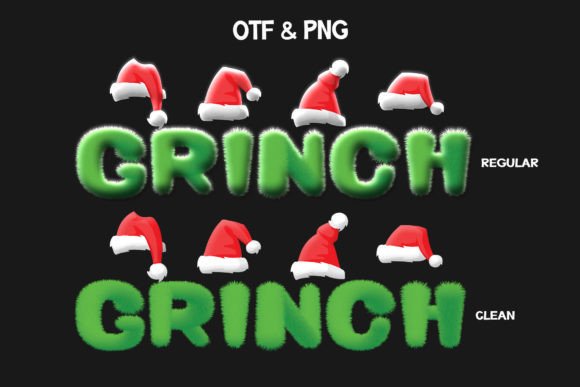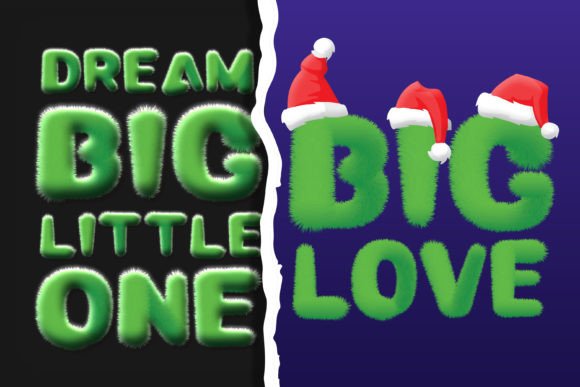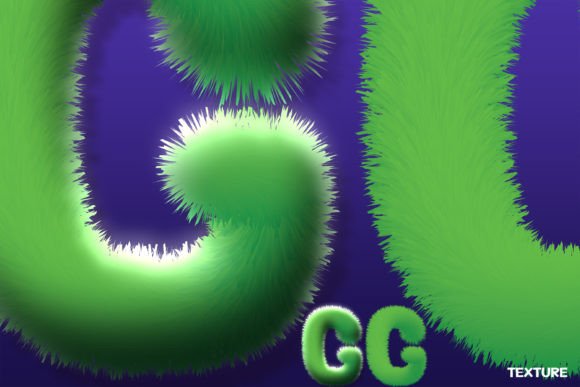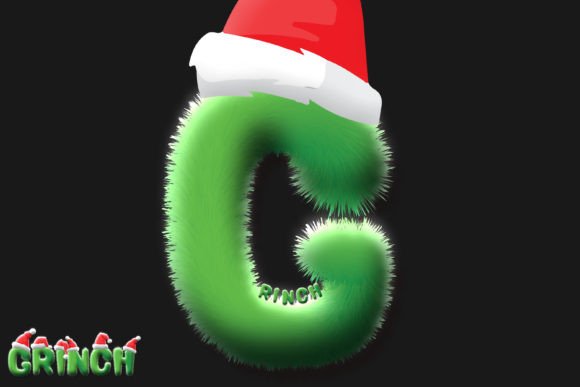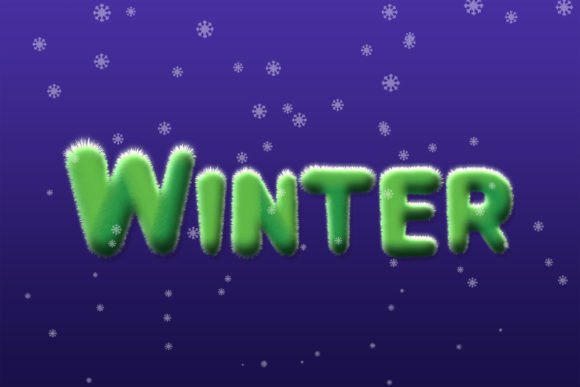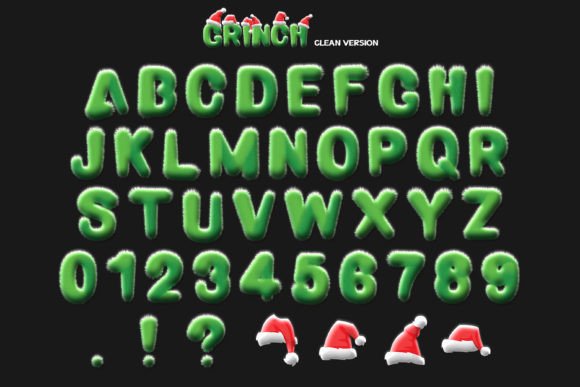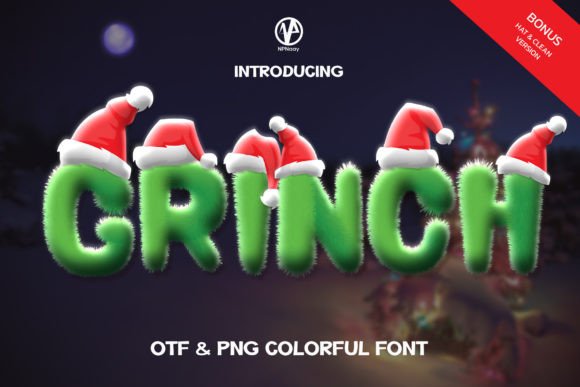
Introducing the Grinch Font: A Fun and Quirky Color Font for Cheerful Designs
Are you looking for a font that can add a touch of whimsy and fun to your designs? Look no further than the Grinch Font! This delightful color font is perfect for use on cheerful topics, making it an ideal choice for children’s themed designs, Christmas projects, and more. In this article, we’ll take a closer look at the Grinch Font, its features, and how you can use it to create amazing designs.
What is the Grinch Font?
The Grinch Font is a color font, specifically an Opentype-SVG font, which means it’s a digital font that can be used in various design software. It’s a fun and quirky font that’s designed to bring a smile to your face. With its bright and cheerful colors, it’s perfect for creating eye-catching designs that are sure to grab attention.
Features of the Grinch Font
- Color Font: The Grinch Font is a color font, which means it comes with multiple colors that can be used to create stunning designs.
- Children’s Themed Designs: The Grinch Font is perfect for use on children’s themed designs, such as birthday cards, party invitations, and kids’ crafts.
- Christmas Designs: The font’s festive and cheerful vibe makes it an excellent choice for Christmas projects, such as holiday cards, decorations, and gift tags.
Tips for Using the Grinch Font
Here are some tips for using the Grinch Font to create amazing designs:
- Combine with Bright Colors: The Grinch Font is designed to be used with bright and cheerful colors. Experiment with different color combinations to create stunning designs.
- Use for Kids’ Projects: The font’s playful and whimsical design makes it perfect for kids’ projects, such as birthday cards, party invitations, and kids’ crafts.
- Add to Your Christmas Designs: The Grinch Font is an excellent addition to your Christmas designs, such as holiday cards, decorations, and gift tags.